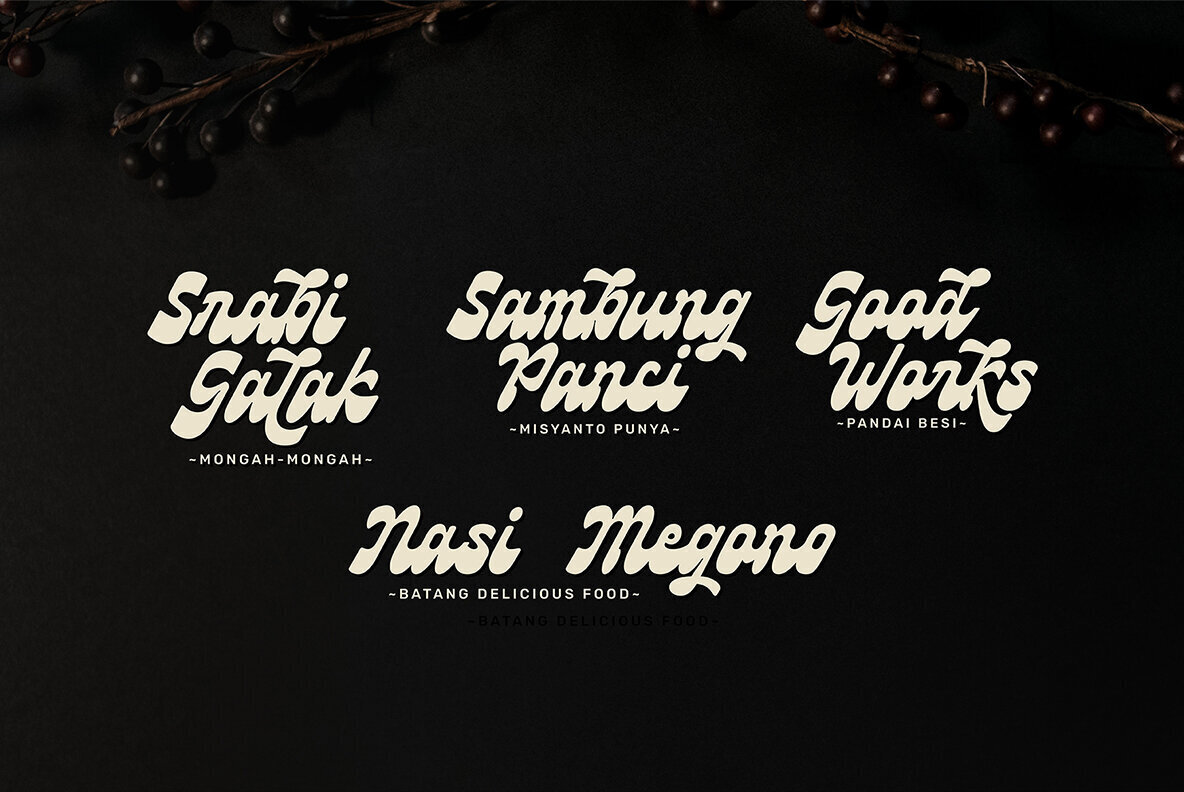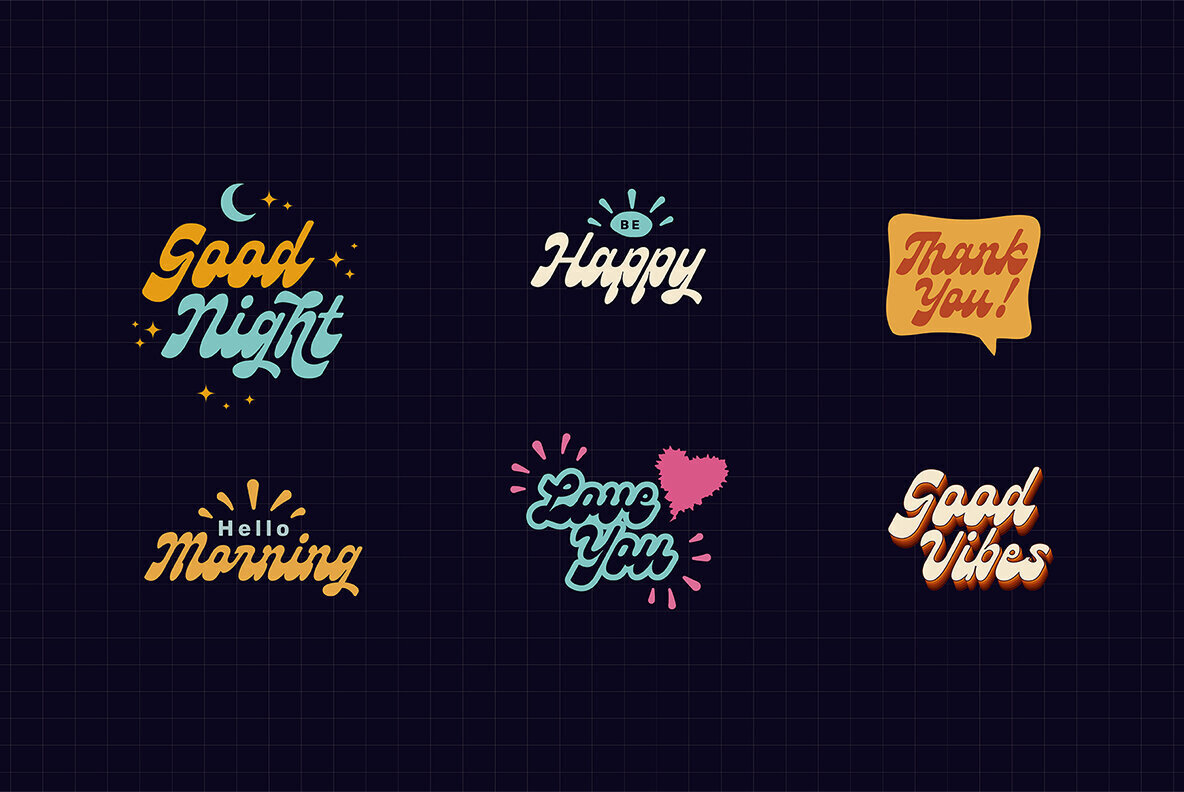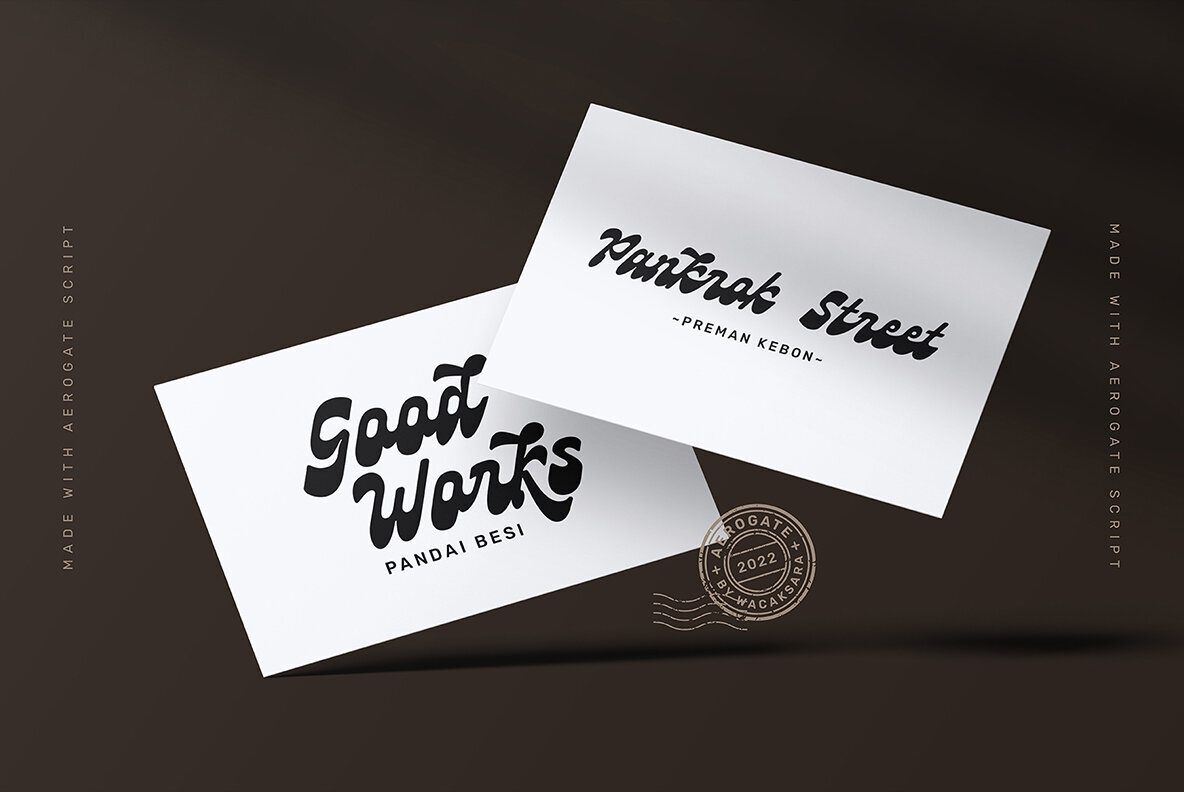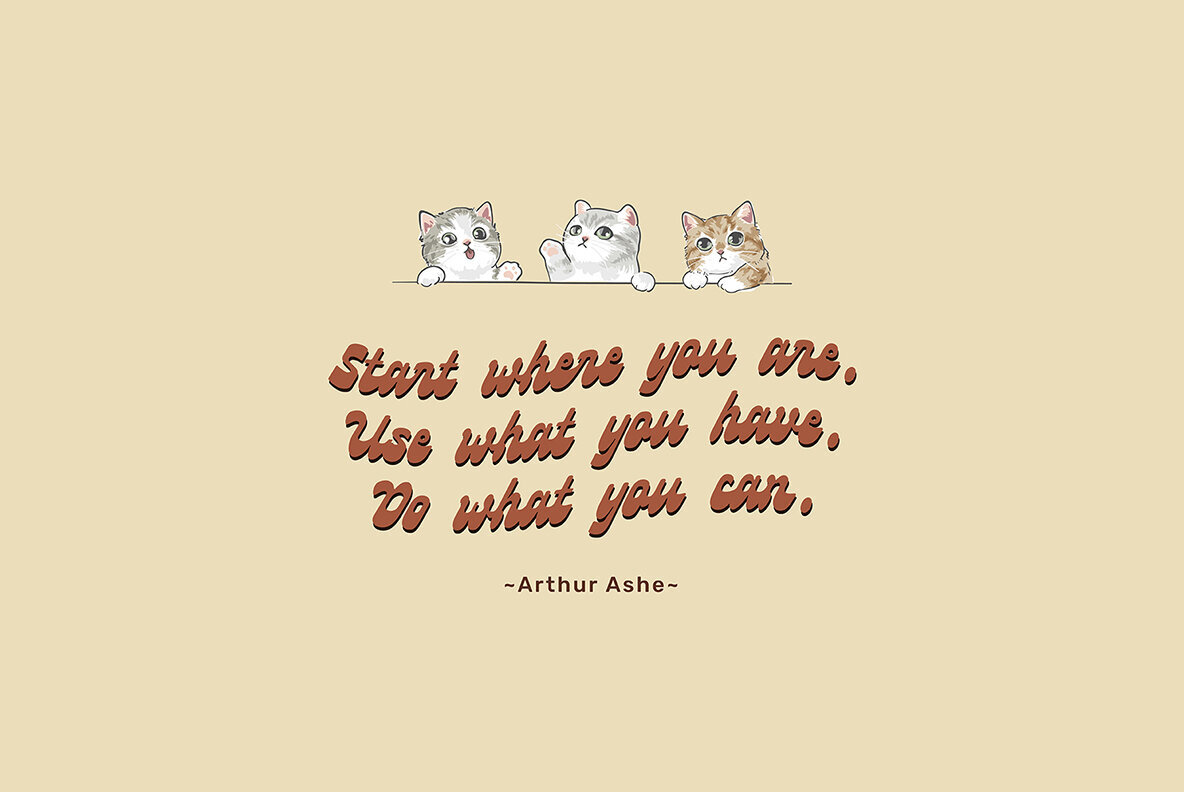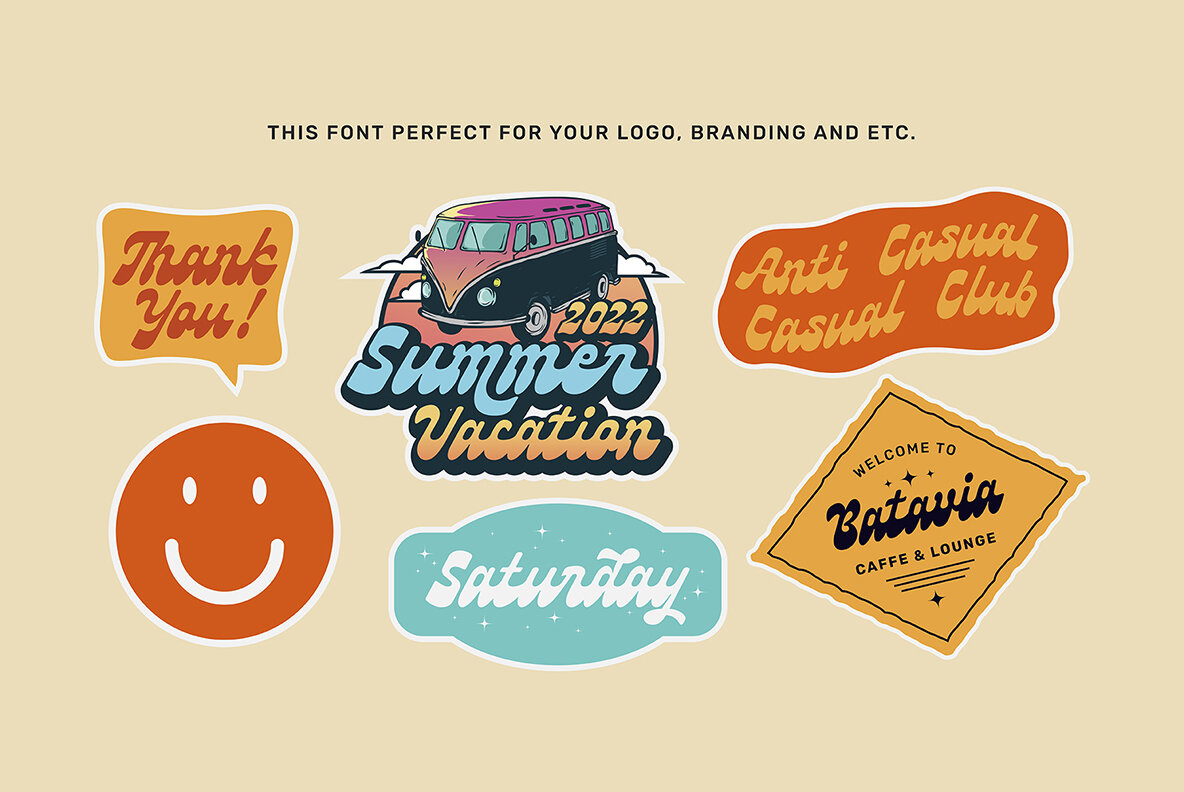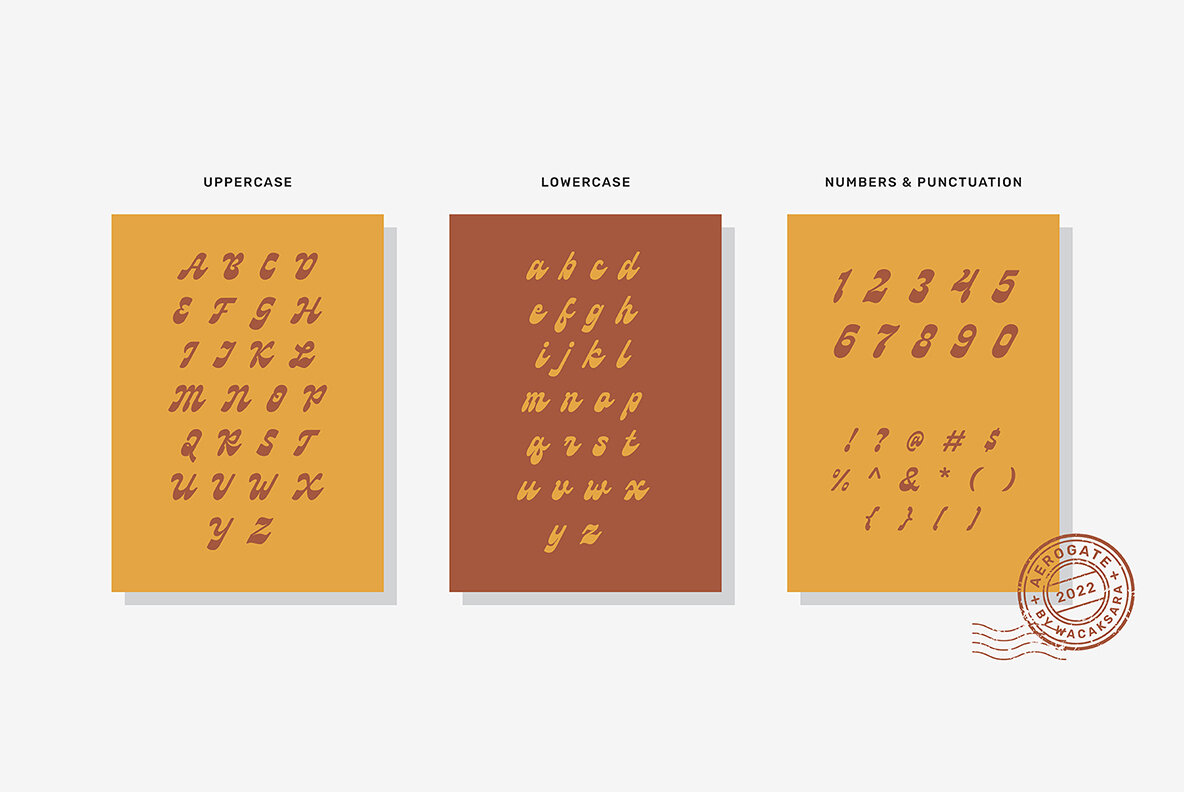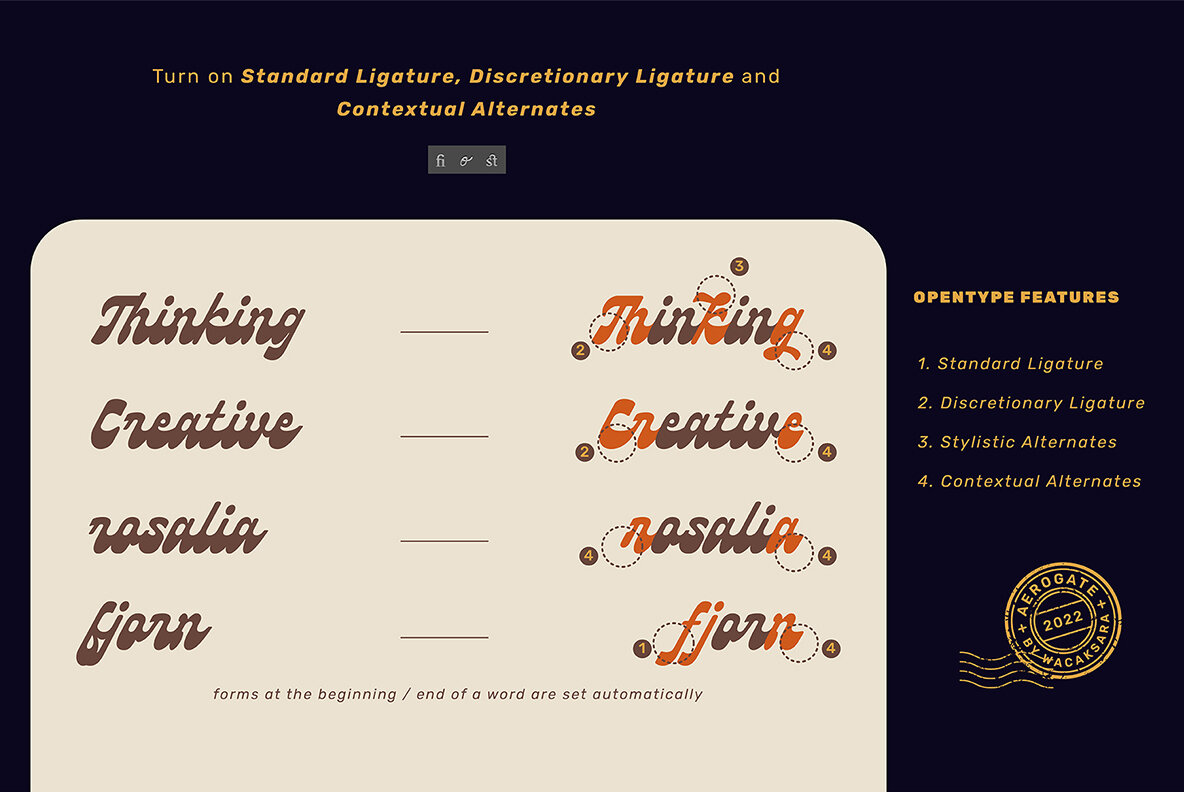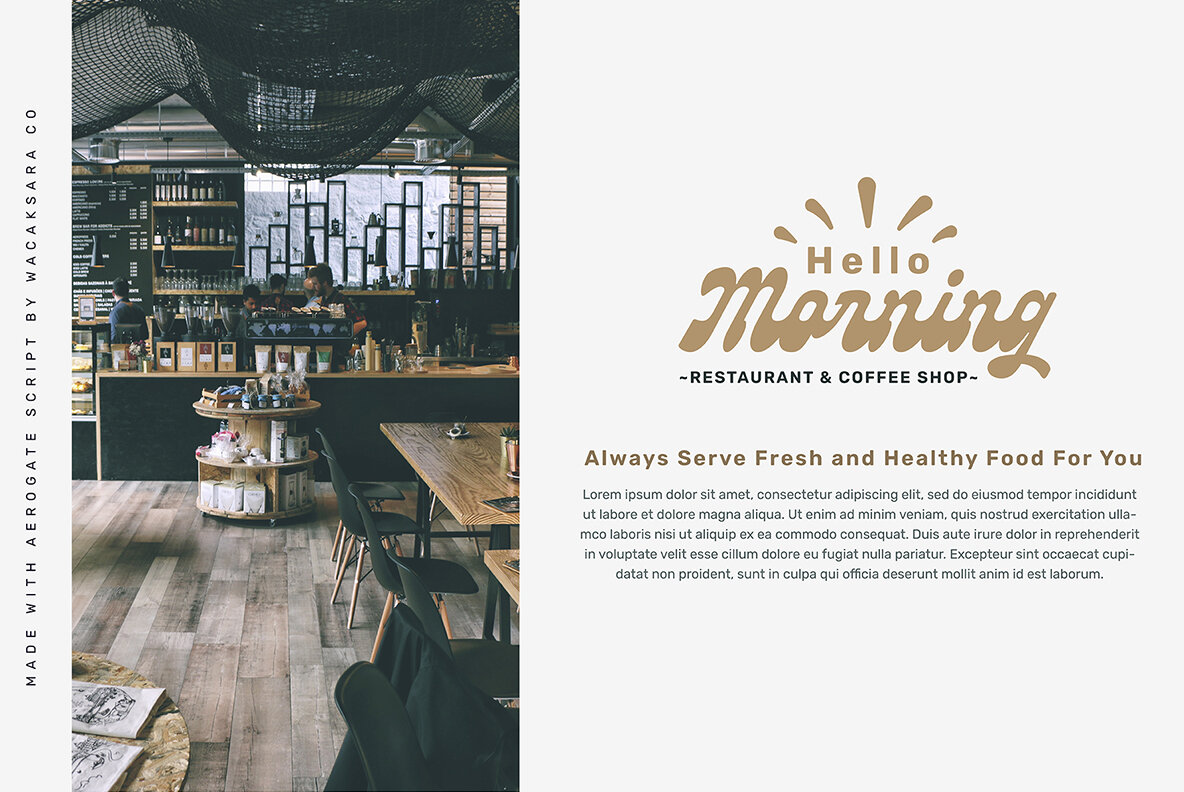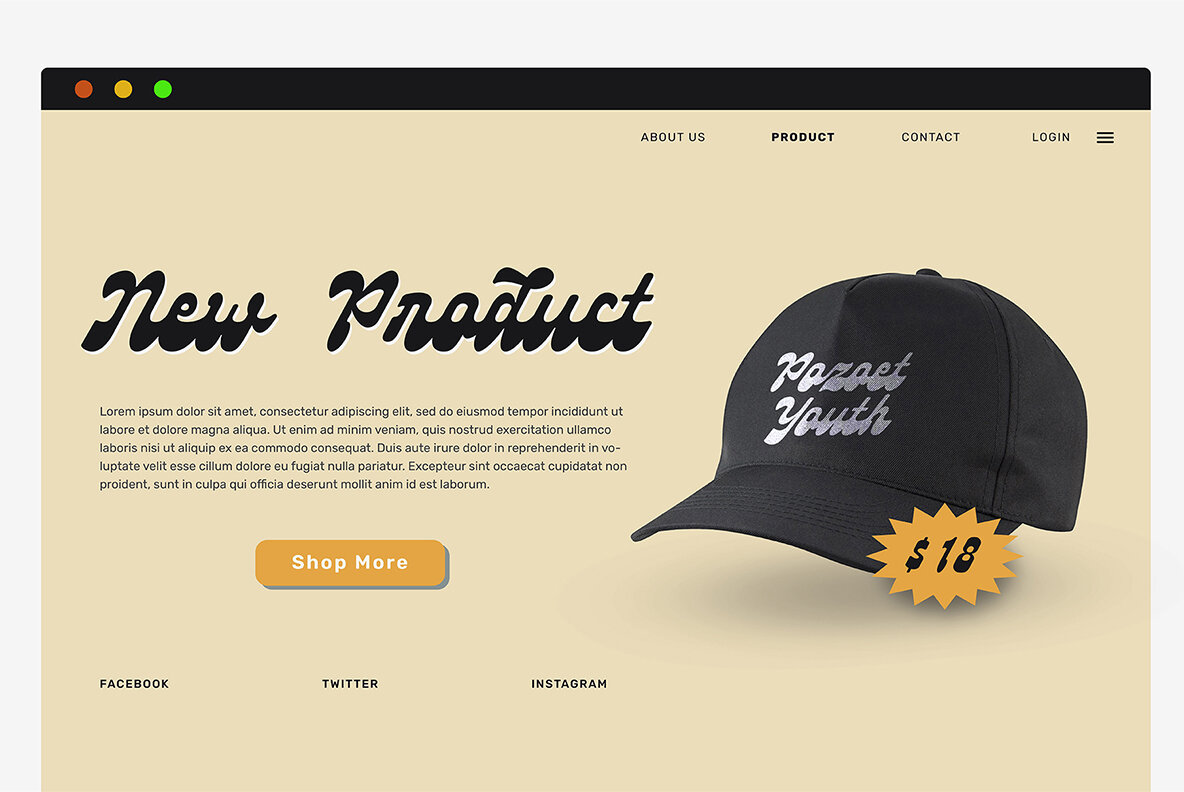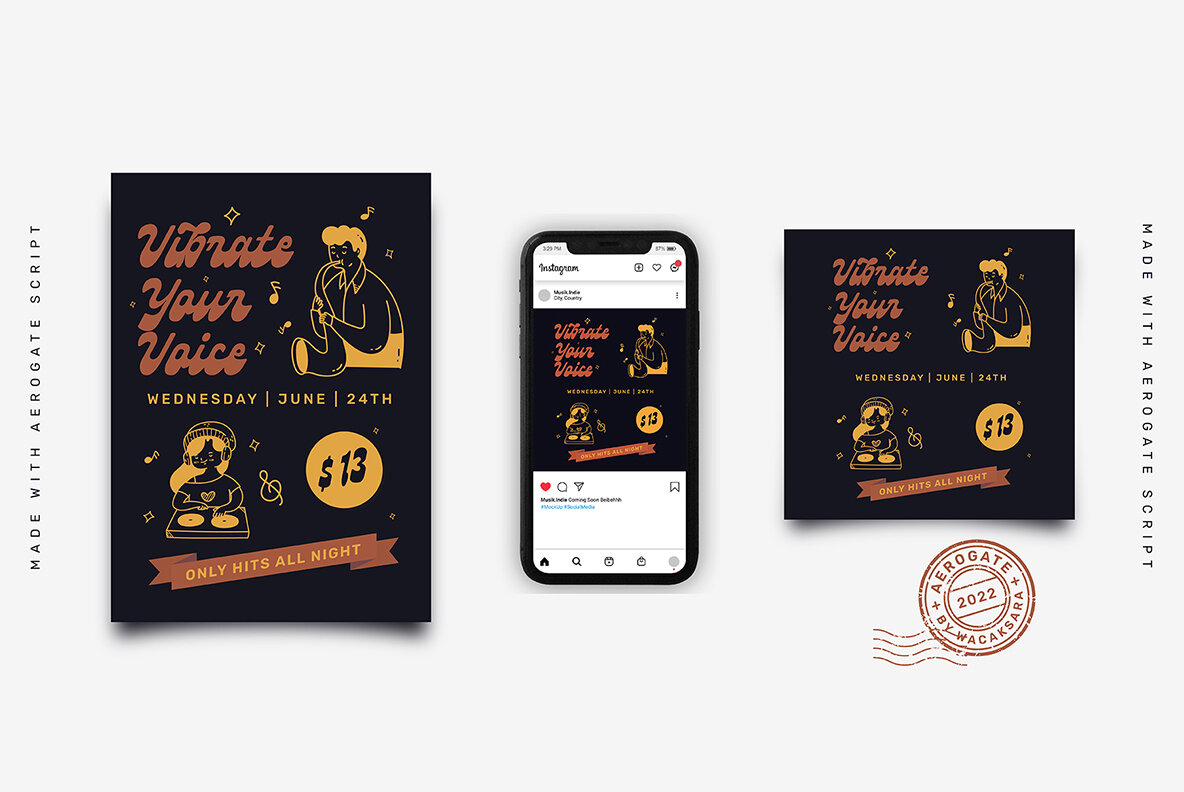
Aerogate Font
Aerogate Script
Aerogate is a bold rounded script font with a bold vintage style inspired by beautiful classic handwriting. made with care and fun without eliminate characteristics of our font.
Aerogate created with a tons of opentype features, contextual alternates, ligatures, and stylistic sets. Make forms at the beginning / end of a word are set automatically. It is smart and it is working in adobe software.
This font is perfect for your creative projects such as Logotype, printed quotes, invitations, business cards, product packaging, headers, Letterhead, Apparel , Web design, Magazine, Book, Stickers, Labels etc.